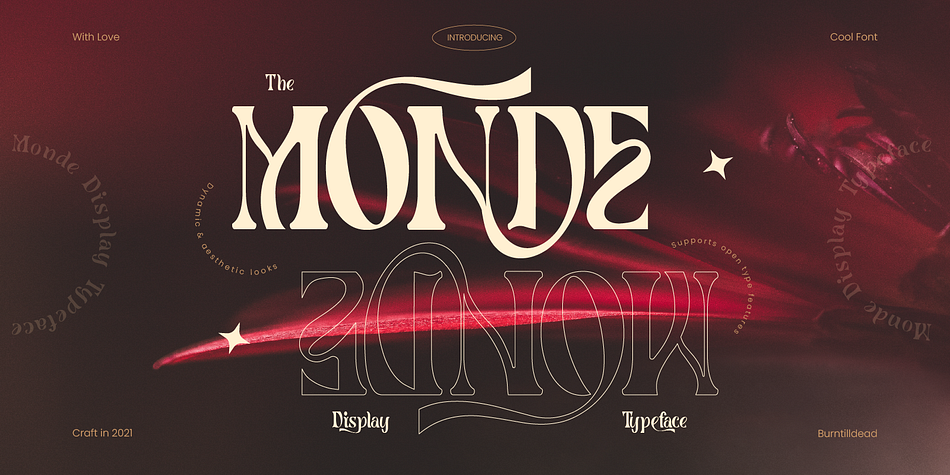
Monde
Designed by Eric Kurniawan, Monde is a display font family published by Burntilldead.
Introducing “Monde” display typeface. Powered with +100 ligatures to bring fluent combination & +70 alternate characters to get dynamic & more aesthetic looks. Perfect and suitable for branding, headline, logotype, sticker, editorial design, and etc.
A-Z Character Set
a-z Characters set
Numerals & Punctuations (OpenType Standard)
100 ligatures
70 Alternate Characters